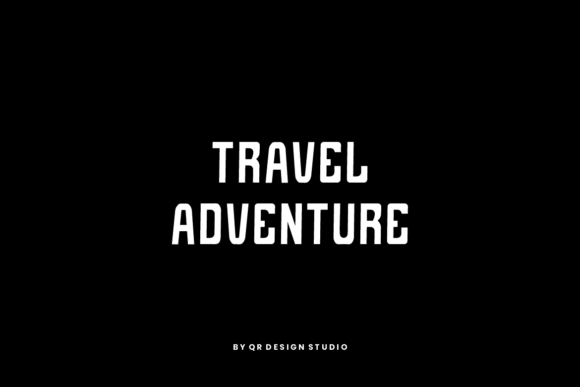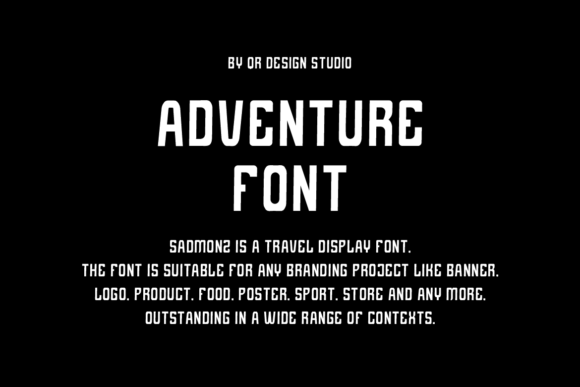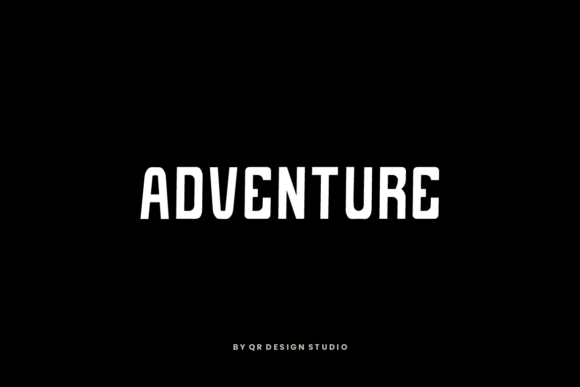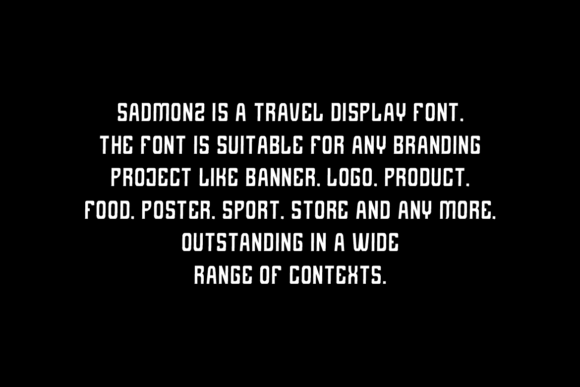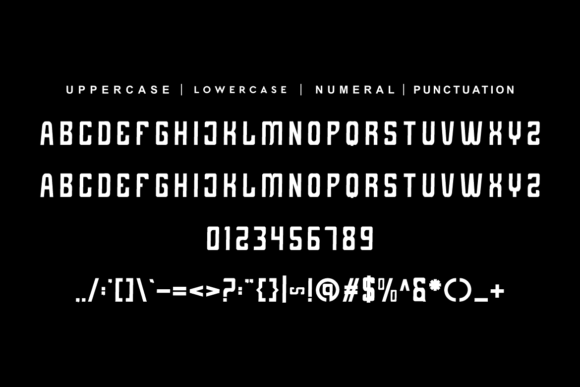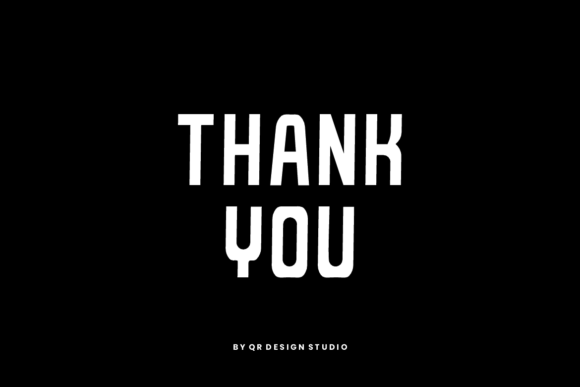
Introduction to Sadmonz Font
Have you ever stared at a blank canvas, searching for the perfect font to bring your creative project to life? The moment of inspiration is fleeting, and the right typography can make all the difference. For designers, finding a high-quality design resource can be a game-changer. That’s where the Sadmonz Font comes in – an incredibly unique sans serif font that has the potential to elevate each of your creative ideas to the highest level.
With its masterful design, the Sadmonz Font offers a level of sophistication and elegance that’s hard to find in other fonts. Whether you’re working on a personal project or collaborating with a team, this font is sure to impress. Plus, its transparent background makes it easy to integrate into any design, and the best part? It’s available for free download, making it a valuable asset for designers of all levels.
Key Features of Sadmonz Font
- High-quality, professional design suitable for various creative projects, including graphic design and digital art.
- Transparent background, allowing for seamless integration into various design elements and backgrounds.
- Unique, hand-drawn style that adds a touch of personality to any design project.
Honest Review: Sadmonz Font
As a designer, I’m always on the lookout for high-quality design resources to elevate my creative projects. Recently, I stumbled upon the Sadmonz Font, and I must say, it’s been a pleasant surprise.
What works well: ✨ The Sadmonz Font is incredibly versatile, suitable for a wide range of design applications, from logos to typography. The font’s modern and sleek aesthetic is perfect for creating a professional and cohesive look in my design projects.
- Transparent background: The font’s transparent background feature allows for seamless integration with other design elements, giving me more flexibility in my design workflow.
- High quality: The font’s quality is top-notch, with crisp and clear typography that’s perfect for both digital and print applications.
However, there are a few limitations to consider: ⚠️ The font’s character set is somewhat limited, which may not be ideal for designers who require a wide range of characters for their projects.
Overall, I’m impressed with the Sadmonz Font, and I’d definitely recommend it to fellow designers. Its high quality, versatility, and free download make it an excellent addition to any design resource collection.
Tips for Getting the Most Out of Sadmonz Font
Use the Sadmonz Font as a design resource for your next creative project. Experiment with different font sizes, colors, and styles to create a unique and eye-catching design. Also, take advantage of the transparent background feature to add depth and dimension to your design.
The Sadmonz Font is ideal for a variety of design projects, including business cards, posters, flyers, and social media graphics. You can also use it for web design, logo creation, and other creative endeavors. With its high-quality design and free download, the Sadmonz Font is a valuable resource for any designer.